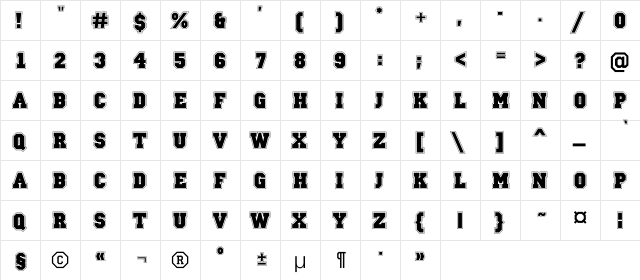
a_CampusGrav Bold
Design Context for a_CampusGrav Typeface
a_CampusGrav is a composed and adaptable typeface that performs quietly and consistently across a wide range of design contexts. The heavy weight commands attention and anchors typographic hierarchies.